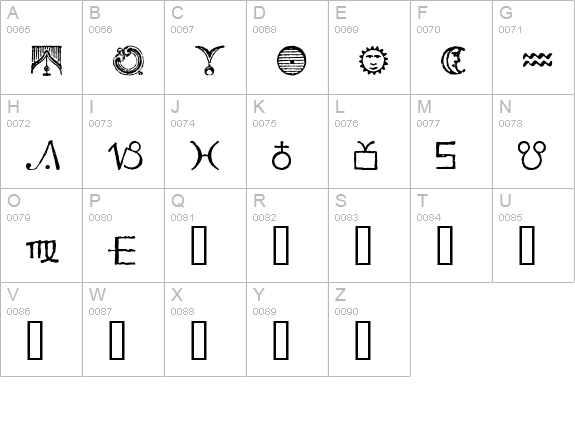
Essene Dingbats Font Details
The Essene Dingbats font is a delightful and whimsical typeface featuring a collection of charming symbols and icons. Perfect for adding a touch of fun and creativity to your design projects, this unique font is sure to make a statement. From decorative ornaments to playful characters, Essene Dingbats offers a wide range of possibilities for creating eye-catching visuals. Best of all, Essene Dingbats is available for free download at FontsMarket.com. Whether you're working on a personal project or a professional design, this font is a fantastic resource that won't break the bank. Download Essene Dingbats today and let your creativity run wild with these delightful and versatile symbols.